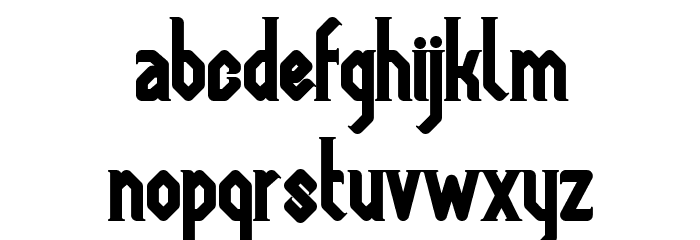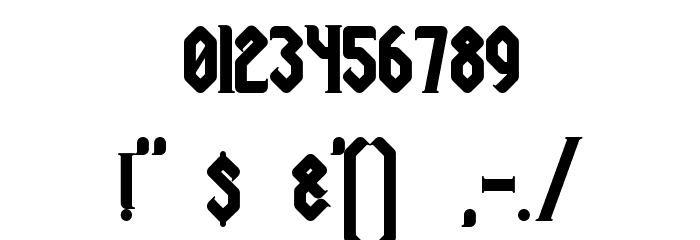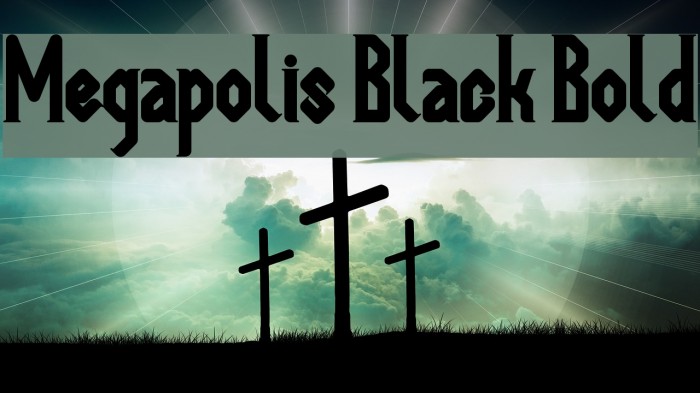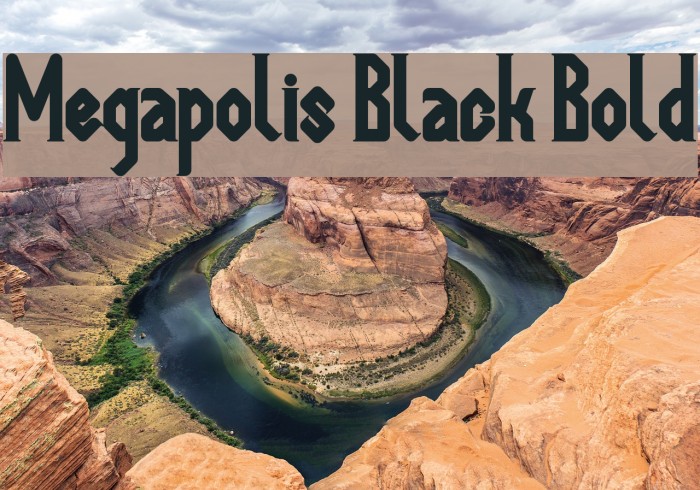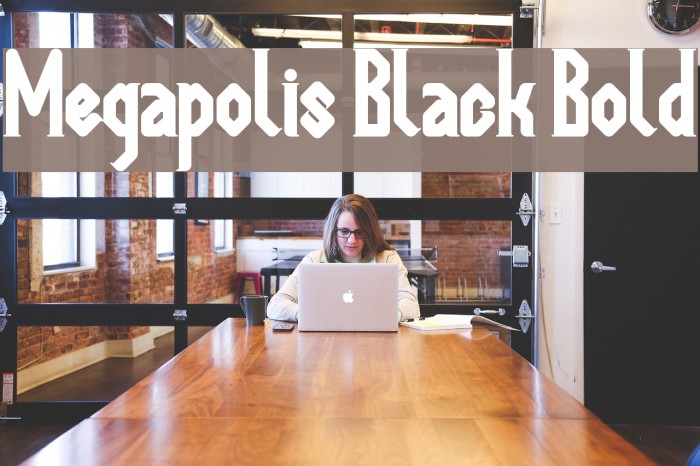
Megapolis Black Bold Font
This font features a bold and striking design, characterized by its thick, angular strokes and geometric shapes. The uppercase letters are particularly prominent, with a strong presence that commands attention. The lowercase letters maintain the same boldness, ensuring consistency throughout the typeface. The numerals are equally robust, making them stand out in any context. Special characters are designed with the same angular and bold style, providing a cohesive look across all glyphs. This font is ideal for projects that require a strong visual impact.
A bold, angular font with geometric shapes and strong visual impact.
- Proposed Projects: Ideal for posters, headlines, branding, and any design needing a bold statement.